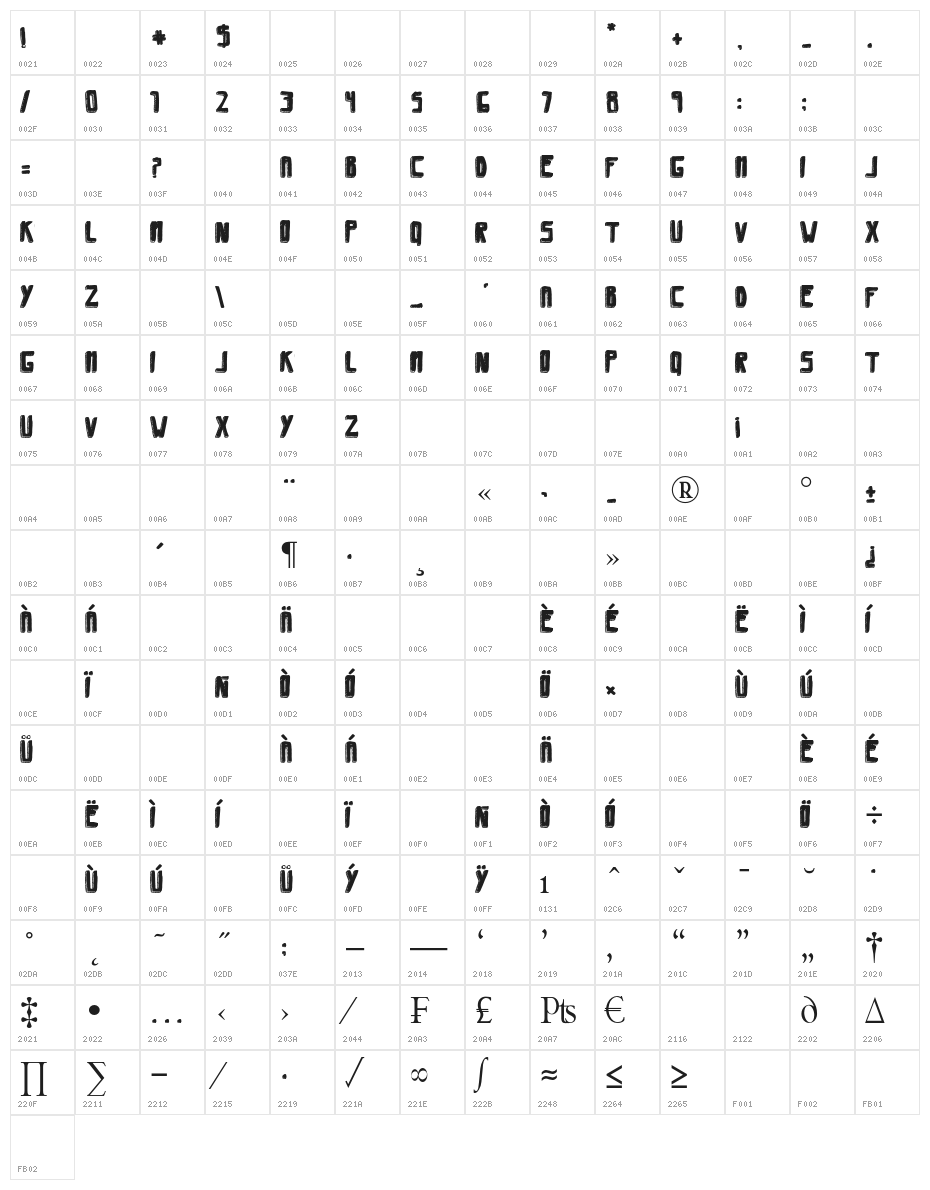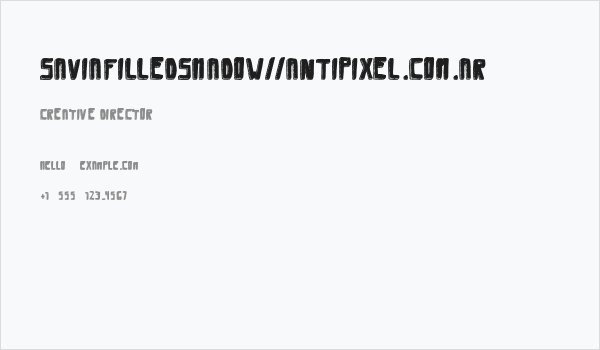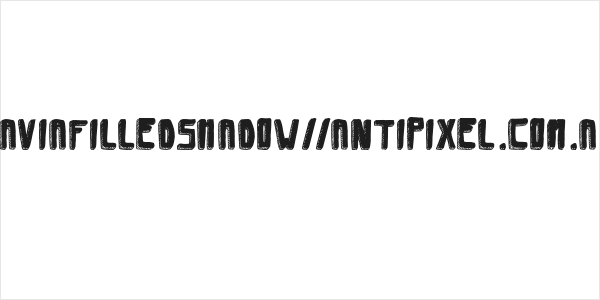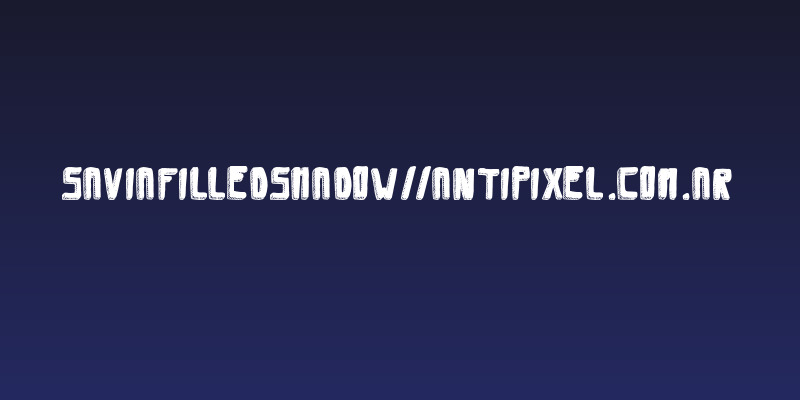
SaviaFilledShadow//ANTIPIXEL.COM.AR Font
SaviaFilledShadow//ANTIPIXEL.COM.AR Description
This font features a bold, shadowed style with a filled appearance that gives it a strong and impactful look. The letters are uppercase and lowercase, with a consistent thickness throughout, creating a uniform and cohesive design. The shadow effect adds depth and dimension, making the characters stand out. The numbers and special characters maintain the same stylistic elements, ensuring a harmonious overall appearance. This font is ideal for projects that require a bold and eye-catching typeface, such as posters, headlines, and branding materials.
Proposed ProjectsIdeal for posters, headlines, branding materials, and any project needing a striking typeface.